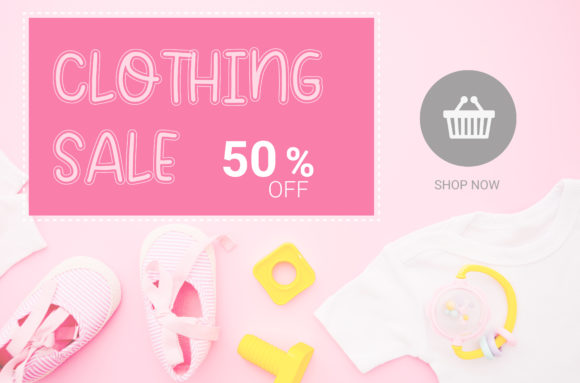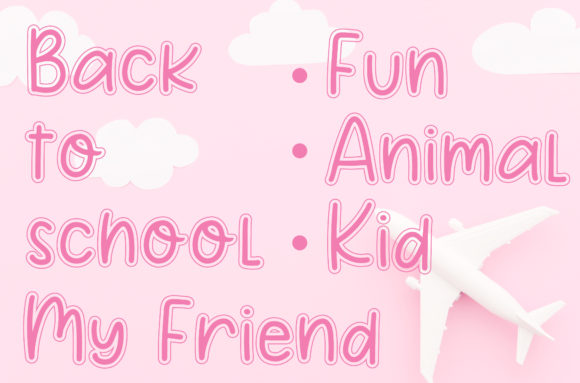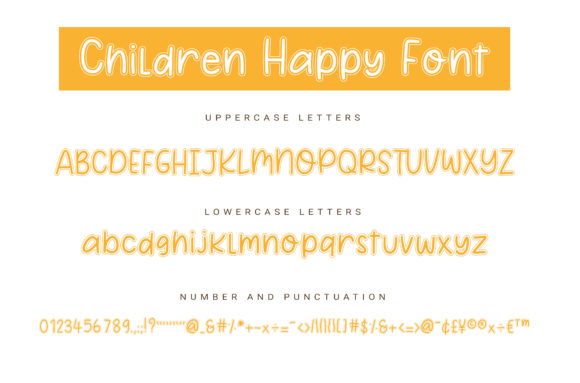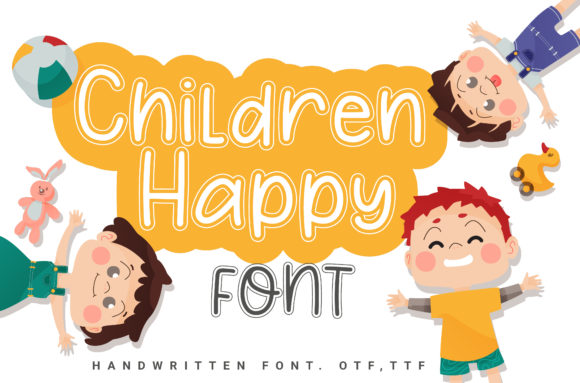
Introducing Children Happy Font: The Perfect Addition to Your Kids’ Projects
Are you a designer, crafter, or parent looking for a fun and playful font to add a touch of excitement to your kids’ projects? Look no further than the Children Happy Font! This delightful handwritten font is designed to bring a smile to everyone’s face, and it’s perfect for a wide range of applications, from school projects to DIY crafts.
What is Children Happy Font?
Children Happy Font is a unique and charming handwritten font that’s specifically designed to capture the playful spirit of childhood. Its childlike curves and lines are sure to add a whimsical touch to any project, making it perfect for kids’ school assignments, craft projects, and even marketing materials aimed at a young audience.
Key Features of Children Happy Font
- Fun and Playful Design: Children Happy Font boasts a fun and playful design that’s sure to delight kids and adults alike. Its handwritten style is both carefree and charming, making it perfect for a wide range of creative projects.
- Handwritten Style: The font’s handwritten style gives it a personal and approachable feel, making it perfect for projects where you want to convey a sense of warmth and friendliness.
- Easy to Read: Despite its playful design, Children Happy Font is surprisingly easy to read, making it perfect for use in body text, headings, and titles.
- Versatile: Children Happy Font is incredibly versatile, and can be used in a wide range of applications, from digital projects to print materials.
Uses for Children Happy Font
So, what can you use Children Happy Font for? The possibilities are endless! Here are a few ideas to get you started:
- Kids’ School Projects: Add a touch of fun and personality to your child’s school projects, such as book reports, science fair labels, and presentations.
- Craft Projects: Use Children Happy Font to add a playful touch to your craft projects, such as handmade cards, gift tags, and DIY decorations.
- Kids’ Party Materials: Create fun and festive party materials, such as invitations, banners, and activity sheets, using Children Happy Font.
- Marketing Materials: Use Children Happy Font in your marketing materials aimed at a young audience, such as brochures, flyers, and social media graphics.
Tips for Using Children Happy Font
Here are a few tips for getting the most out of Children Happy Font:
- Pair it with Other Fonts: Experiment with pairing Children Happy Font with other fonts to create a unique and visually appealing combination.
- Use it in Headings and Titles: Use Children Happy Font to add a touch of personality to your headings and titles, and keep it consistent throughout your project.
- Experiment with Colors: Don’t be afraid to experiment with different colors and textures to add an extra layer of fun and personality to your project.
| Font Name | Children Happy Font |
| Author | artdee2554 |
In conclusion, Children Happy Font is a fun and beautiful handwritten font that’s perfect for adding a touch of playfulness to your kids’ projects. Its childlike curves and lines are sure to delight kids and adults alike, and its versatility makes it perfect for a wide range of applications. So why not give it a try and see what creative possibilities you can come up with?
Get Creative with Children Happy Font!